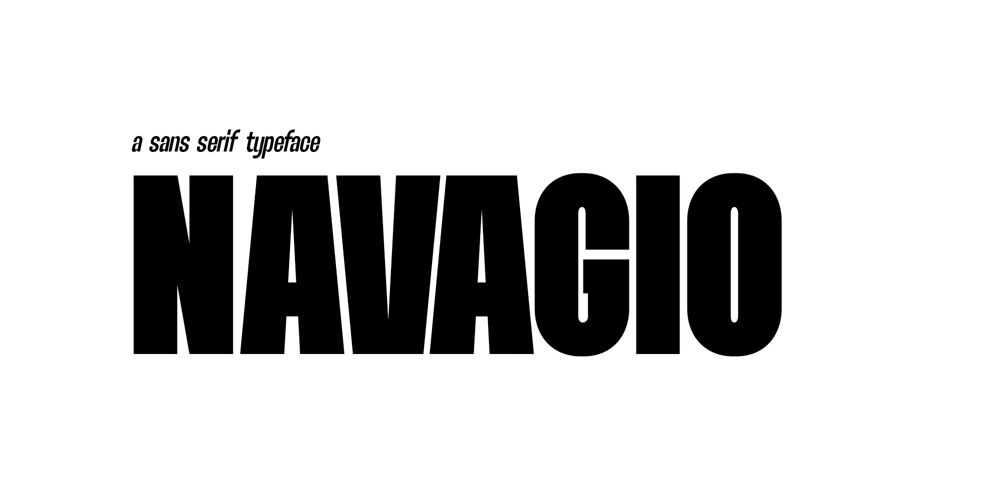
Navagio Font Family was designed by Yudi Pratama Chandra and published by RantauType. Navagio contains 6 styles and family package options. Navagio is new sans serif font family with lowercase. We make it look modern, high and clean. Navagio have 2 weight and 6 font included.Navagio will perfect for many project: branding, logos, magazines, films, poster, quotes, broadcast, photography, invitation, blog, advertising, postcard, book, social media, website, etc. Navagio here to make your brand to high level!!!Features: Standar letter A-Z and a-z Numberial and Functional Works on PC & Mac Simple installations Accessible in Adobe Illustrator, Adobe Photoshop, Adobe InDesign, even work on Microsoft Word. Fonts include Multilingual Support for: Afrikaans, Albanian, Asu, Basque, Bemba, Bena, Breton, Chiga, Cornish, Dutch, English, Estonian, Filipino, Finnish, Friulian, Galician, Gusii, Indonesian, Irish, Italian, Kabuverdianu, Kalenjin, Kinyarwanda, Luo, Luxembourgish, Luyia, Machame, Makhuwa-Meetto, Makonde, Malagasy, Manx, Morisyen, North, Ndebele, Nyankole, Oromo, Portuguese, Quechua, Romansh, Rombo, Rundi, Rwa, Samburu, Sango, Sangu, Scottish, Gaelic, Sena, Shambala, Shona, Soga, Somali, Spanish, Swahili, Swedish, Swiss, German.Thank you for your purchase!Hope you enjoy with our font!